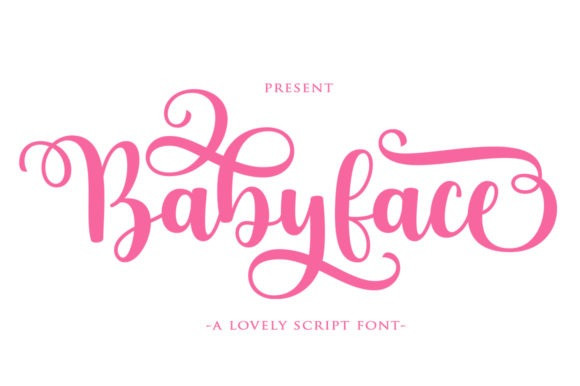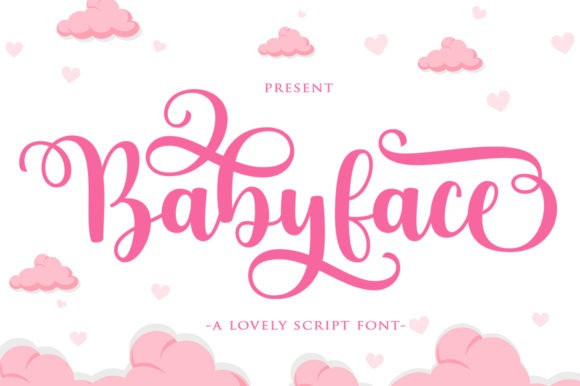
Babyface Font
Babyface Font is an equally sophisticated and bold handwritten font that’s great for delivering any message with confidence, authenticity and charm. This font is PUA encoded which means you can access all of the glyphs and swashes with ease!